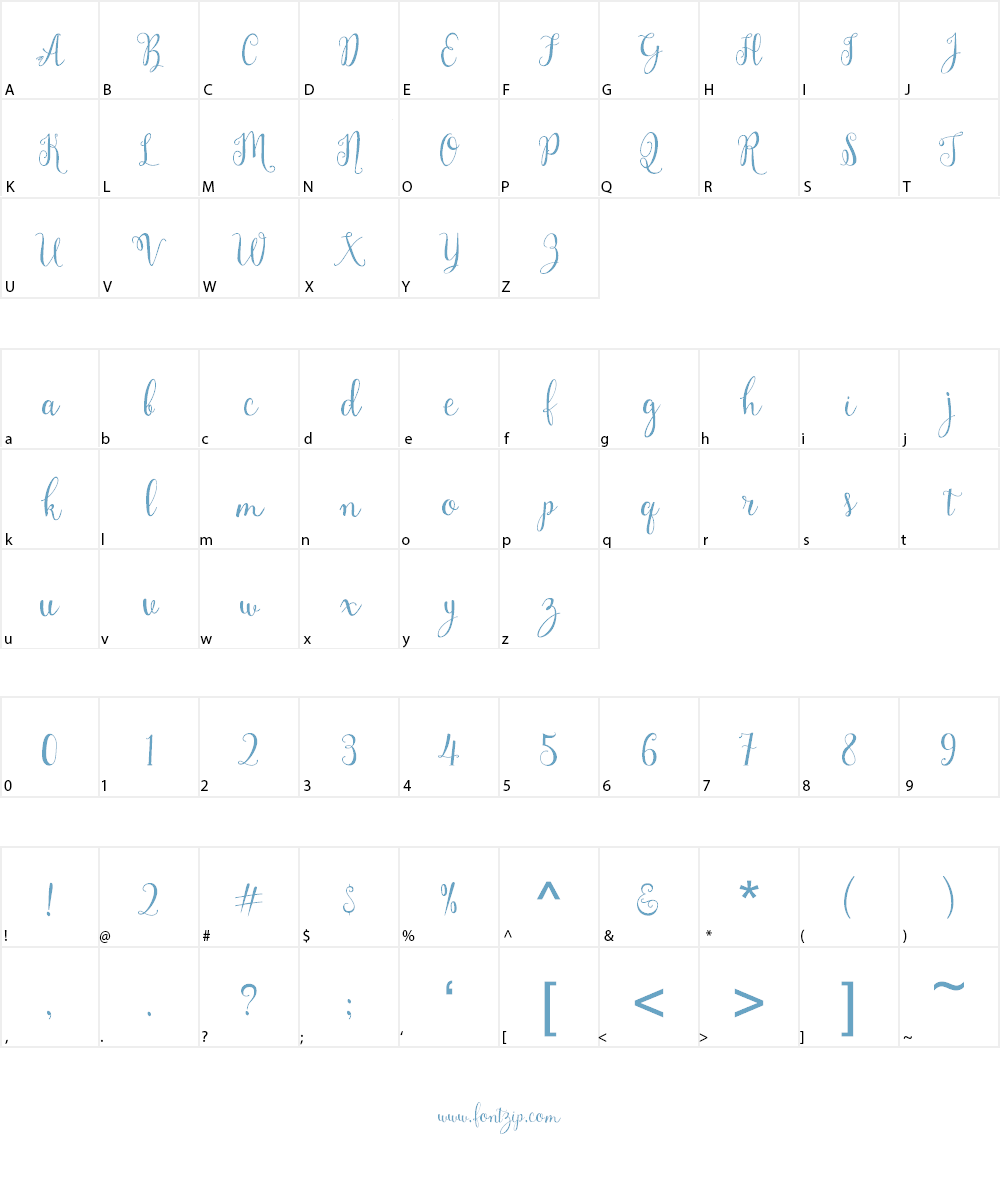
Holland Script is handwritten stylish copperplate calligraphy fonts, combines from copperplate to contemporary typeface with a dancing baseline, classic and elegant touch. The font has uppercase letters, lowercase letters and some of the most used glyphs. Holland Font beautiful on invitation like greeting cards, branding materials, business cards, quotes, posters, and more!!